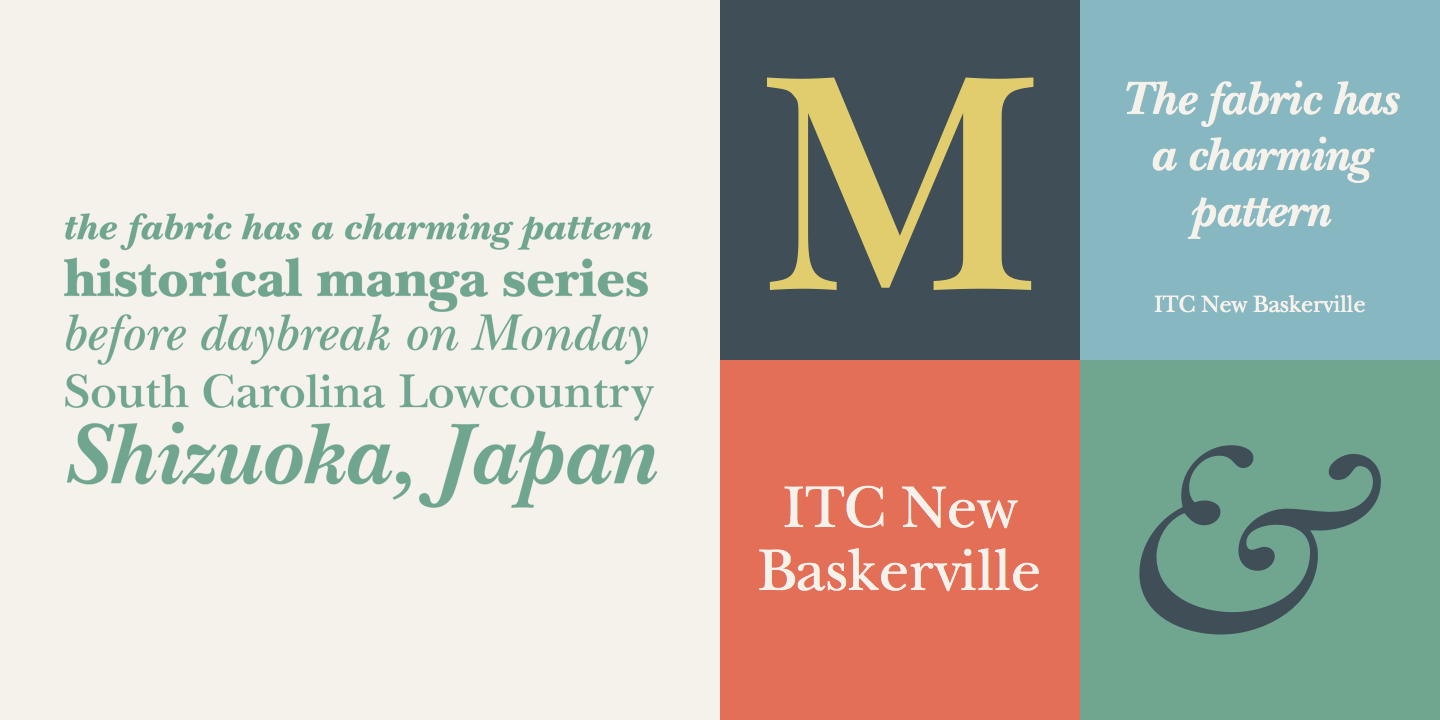
The ITC New Baskerville Font is perfect for book publishing, academic journals, literary magazines, formal documents, luxury brand communications, classical music programs, law firm materials, museum catalogs, and elegant editorial design projects that require sophisticated traditional typography.
What makes the ITC New Baskerville Font Free Download so exciting is its masterful revival of John Baskerville's 18th-century masterpiece enhanced with contemporary digital precision. This typeface preserves the distinctive high contrast between thick and thin strokes that made the original Baskerville revolutionary, while adding modern refinements for optimal readability across all media. Its elegant proportions and refined character shapes create an atmosphere of intellectual sophistication and timeless authority.
The ITC New Baskerville Font family includes Roman, Italic, Semibold, and Bold weights, each maintaining the font's signature classical elegance and distinctive character. The collection features expert character sets with small capitals, old-style figures, and extensive punctuation options. This comprehensive font system ensures designers have access to professional typographic tools for creating sophisticated layouts that honor traditional publishing standards.
Essential for publishers, academic institutions, luxury brands, and cultural organizations seeking to convey authority and refined taste. The font's classical heritage makes it indispensable for scholars, editors, and creative professionals developing premium editorial content. Download ITC New Baskerville Font Free Download today and experience the timeless elegance of one of typography's greatest achievements, perfectly adapted for modern design applications.